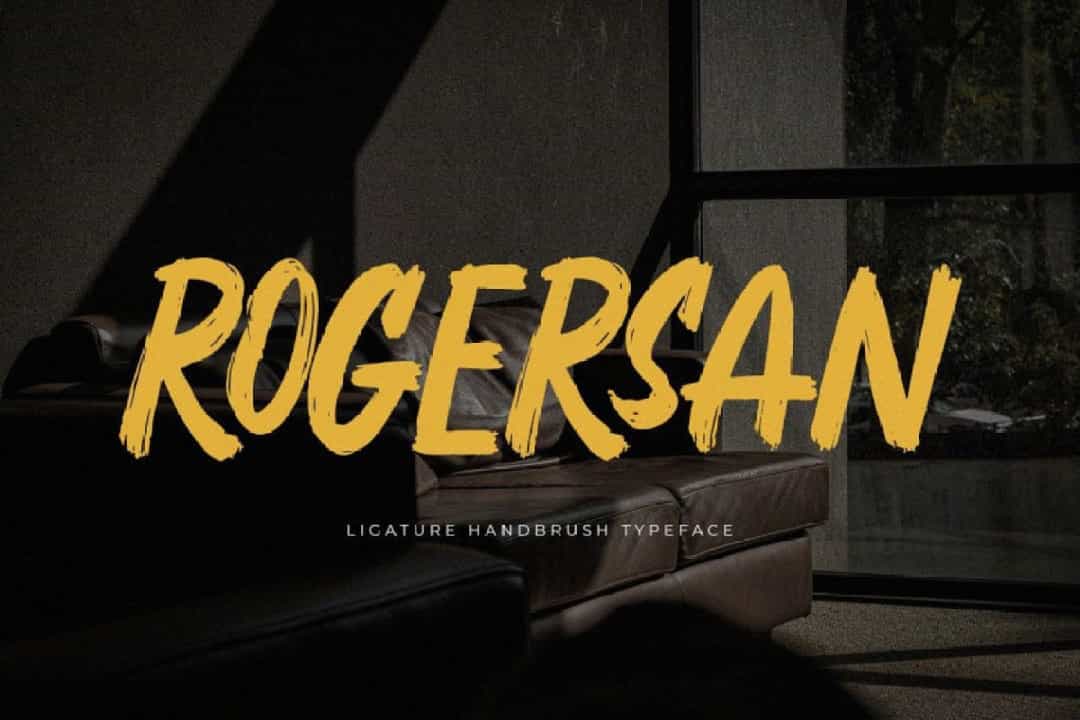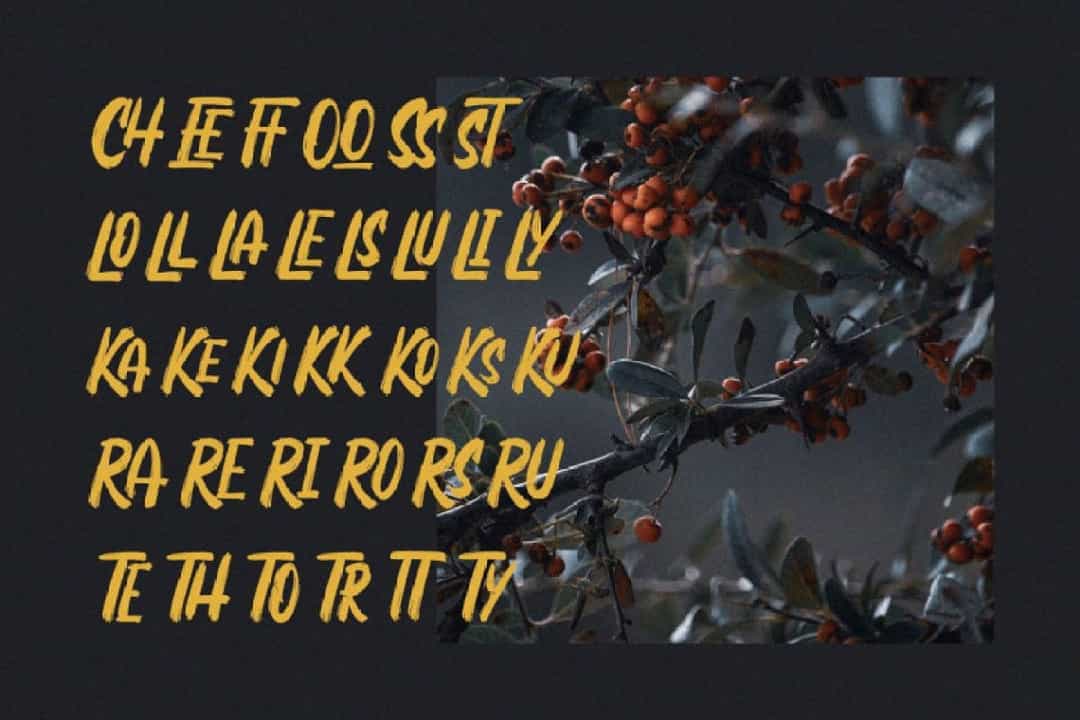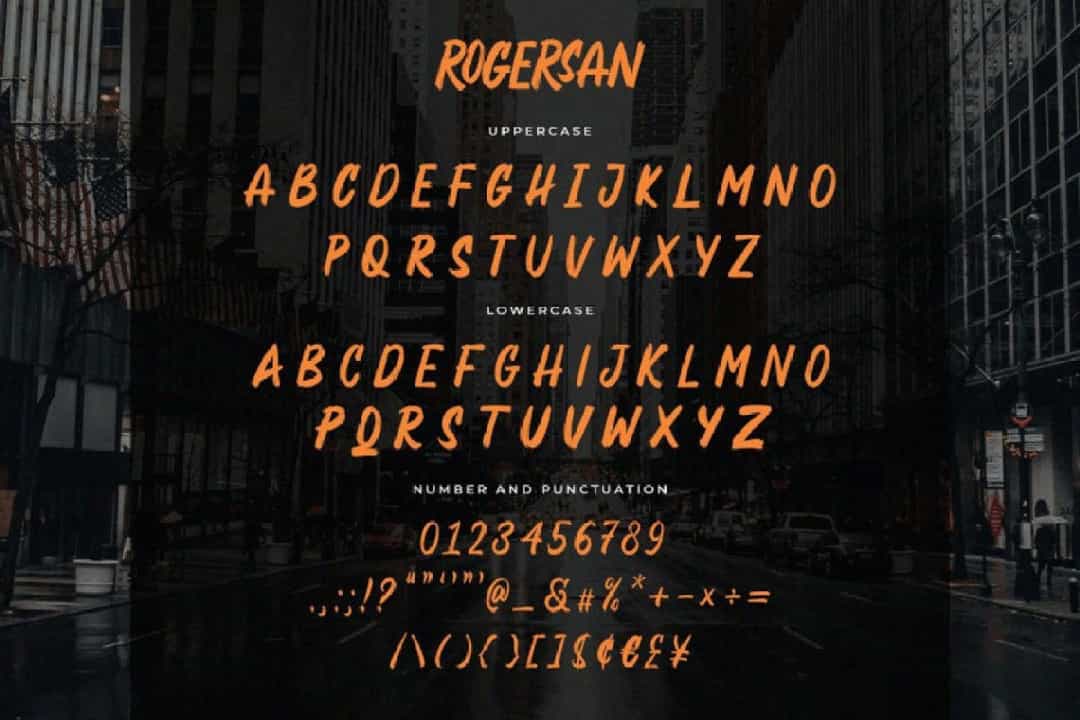
Rogersan, our brand new brush typeface filled with stylistic options and ligatures, could be perfect for packaging, posters headlines, advertising branding signage and anything that requires urban style and feel.